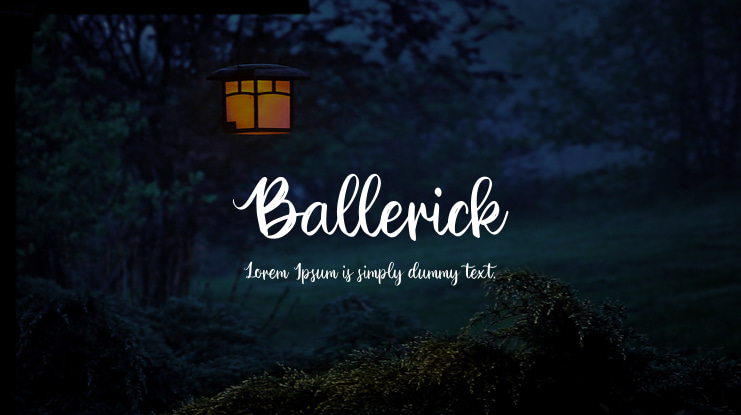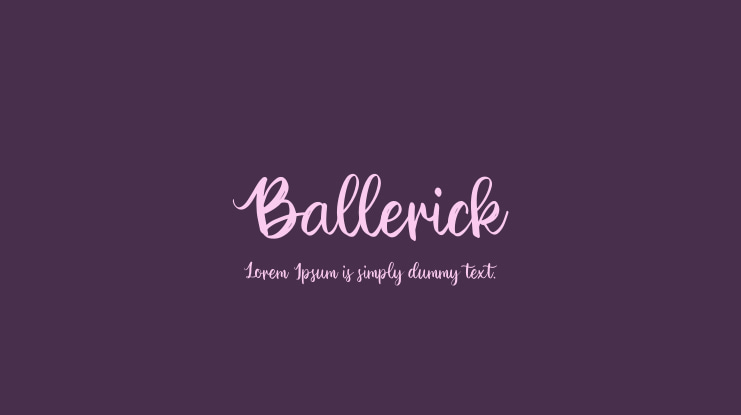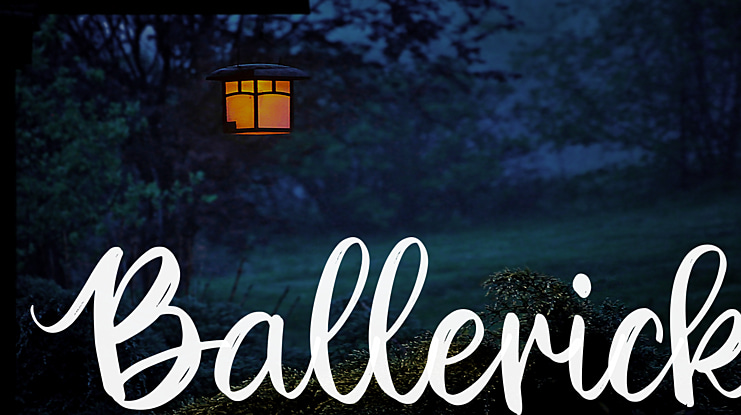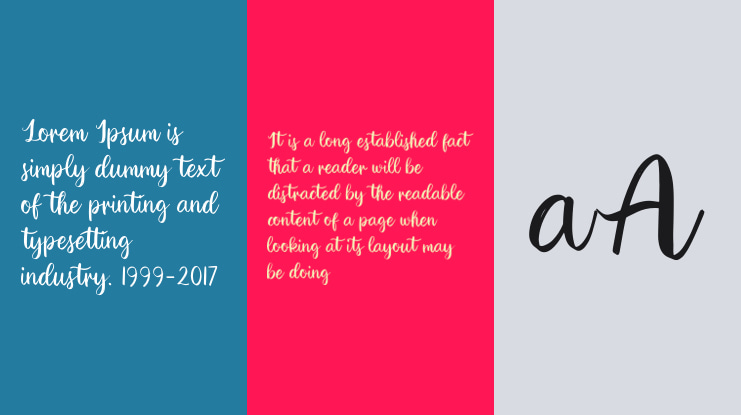
Ballerick Font
Ballerick is a lovely and timeless brushed handwritten font. It is the best choice for creating eye catching logos, branding and quotes. Every letter has a unique and beautiful touch, which will make your design come alive!